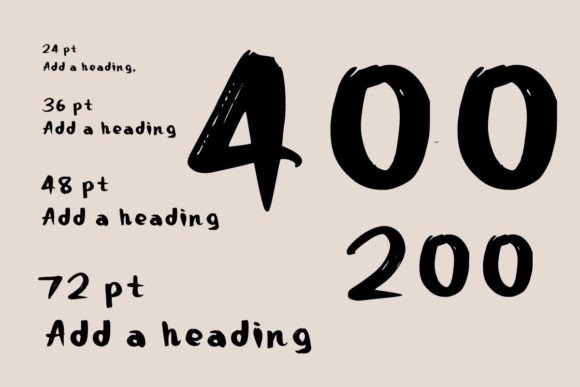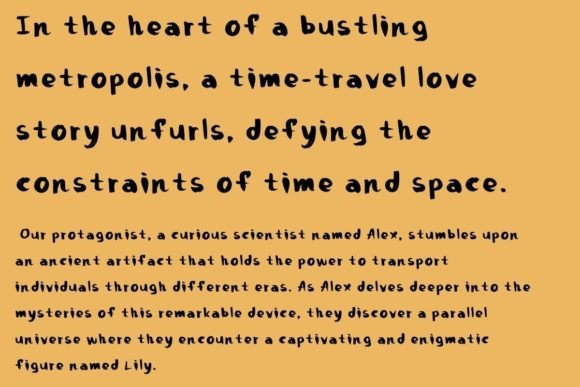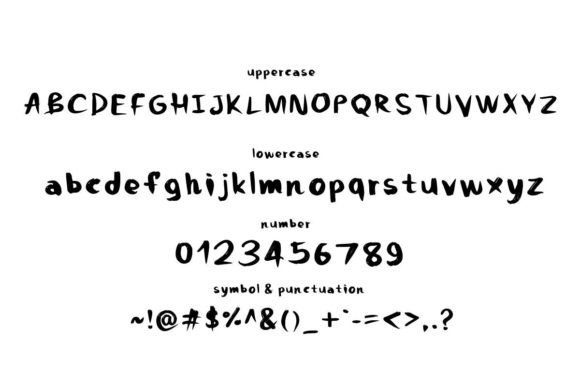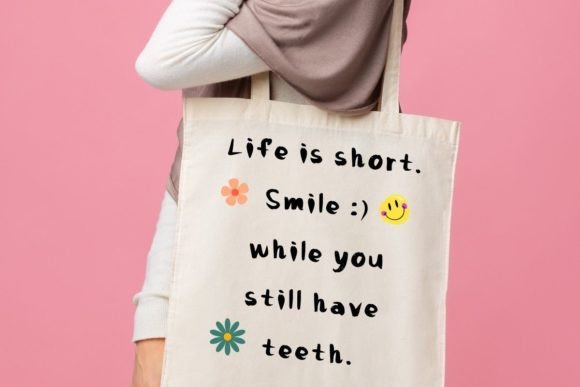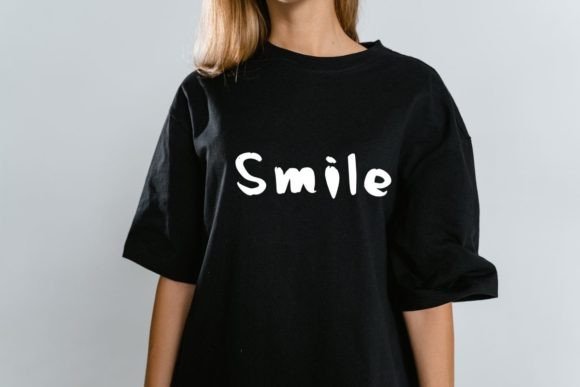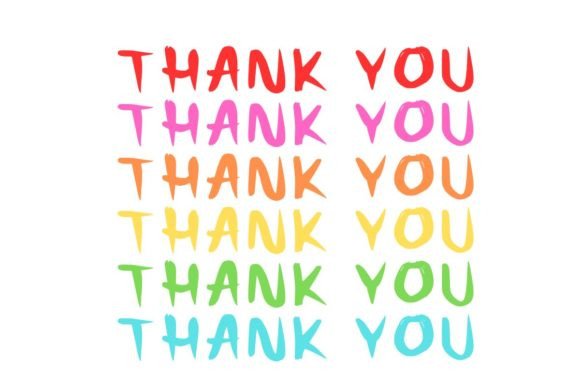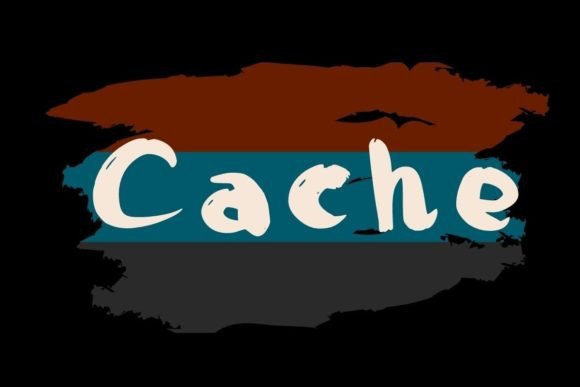
Introducing Cache Font: Adding Character and Charm to Your Creative Projects
In the world of typography, fonts play a crucial role in conveying the tone and personality of a design project. For designers and crafters looking to add a touch of uniqueness and charm to their creations, Cache Font is an excellent choice. This bold handwritten font is designed to make a statement, and its distinctive features make it an ideal addition to various design projects.
The Unique Characteristics of Cache Font
Cache Font boasts a slightly rough texture that gives it a one-of-a-kind appearance. The letters in Cache have a handmade feel, which adds to their character and charm. The font’s boldness is another striking feature that makes it stand out in various design projects. Whether you’re working on a logo, branding materials, or digital content, Cache Font is sure to grab attention and leave a lasting impression.
Why Choose Cache Font for Your Design Projects?
There are several reasons why Cache Font is an excellent choice for designers and crafters:
- Unique Texture: The rough texture of Cache Font gives it a distinctive look that sets it apart from other fonts.
- Bold and Impactful: The font’s boldness makes it perfect for headlines, titles, and other design elements that require a strong visual impact.
- Handwritten Feel: The handmade feel of Cache Font adds a touch of personality and warmth to any design project.
- Versatile: Cache Font can be used in a wide range of design projects, from logos and branding materials to digital content and print materials.
How to Use Cache Font in Your Design Projects
Cache Font can be used in various design projects, including:
- Logos and Branding Materials: Use Cache Font to create a unique and memorable logo that reflects your brand’s personality.
- Digital Content: Add Cache Font to your website, social media graphics, or email newsletters to give them a bold and eye-catching look.
- Print Materials: Use Cache Font in brochures, flyers, posters, and other print materials to add a touch of character and charm.
- Packaging Design: Cache Font can be used on product packaging to make it stand out on store shelves.
Tips for Getting the Most Out of Cache Font
To get the most out of Cache Font, consider the following tips:
- Experiment with Colors: Cache Font looks great in bold and bright colors, so don’t be afraid to experiment with different color combinations.
- Mix and Match: Combine Cache Font with other fonts to create a unique and visually appealing typography.
- Pay Attention to Spacing: Make sure to adjust the spacing between letters and words to ensure that your text is easy to read.
Cache Font is a bold and charming handwritten font that can add character and personality to any design project. Its unique texture, boldness, and handmade feel make it an excellent choice for designers and crafters looking to create something special. With its versatility and ease of use, Cache Font is sure to become a staple in your design toolkit.